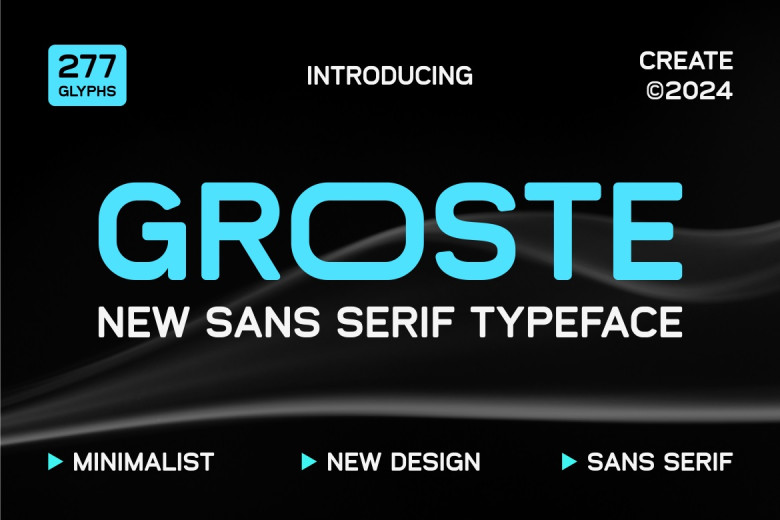
Groste Font
Groste is a simplistic typeface that lacks fancy decoration on its letter. This makes it very easy to read either in a digital environment or a printed one it is very simple and adds a level of professional simplicity without going overboard.
Groste Sans Serif Font